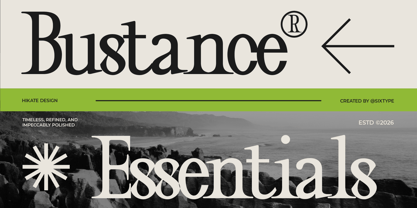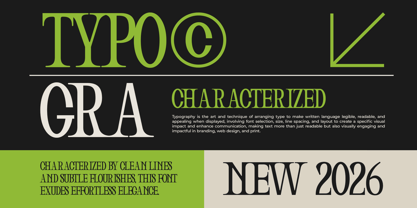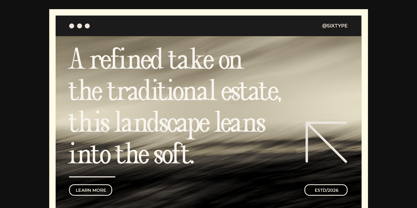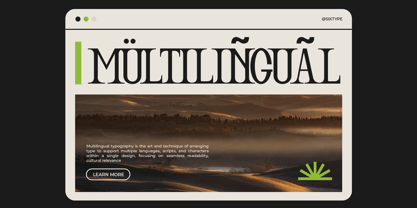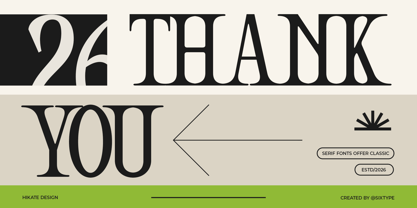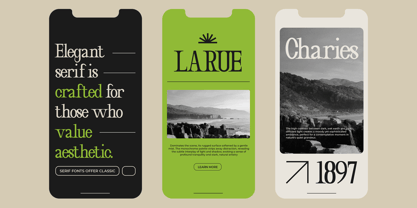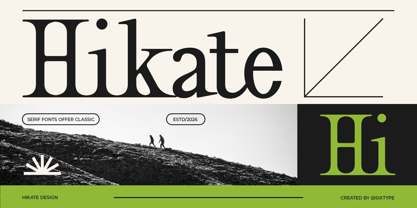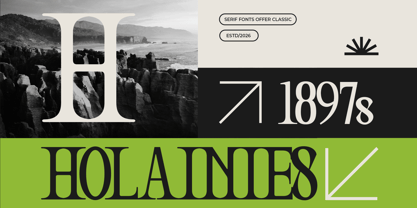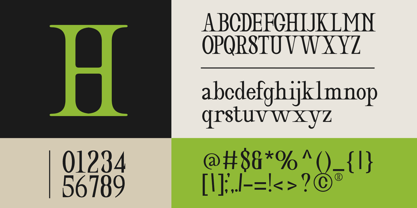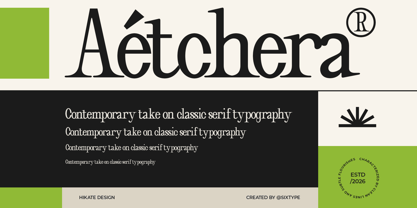
Hikate
by Sixtype Foundry
The Hikate Font Family and published by Sixtype Foundry. Hikate contains 1 styles. More about this family
Hikate is a refined serif typeface that reinterprets classic typography with a modern sensibility. Featuring high contrast strokes, graceful curves, and subtle decorative flourishes, it delivers a sophisticated and expressive tone while maintaining excellent readability. Its distinctive character shapes especially in select uppercase and lowercase forms add a unique personality that stands out in premium branding, editorial design, and luxury packaging. Hikate strikes a perfect balance between tradition and innovation, making it an ideal choice for designers seeking a timeless serif with a fresh, stylish edge. This typeface is perfect for headlines, identity systems, and elegant layouts that demand both clarity and character, enhancing any project with its refined aesthetic.